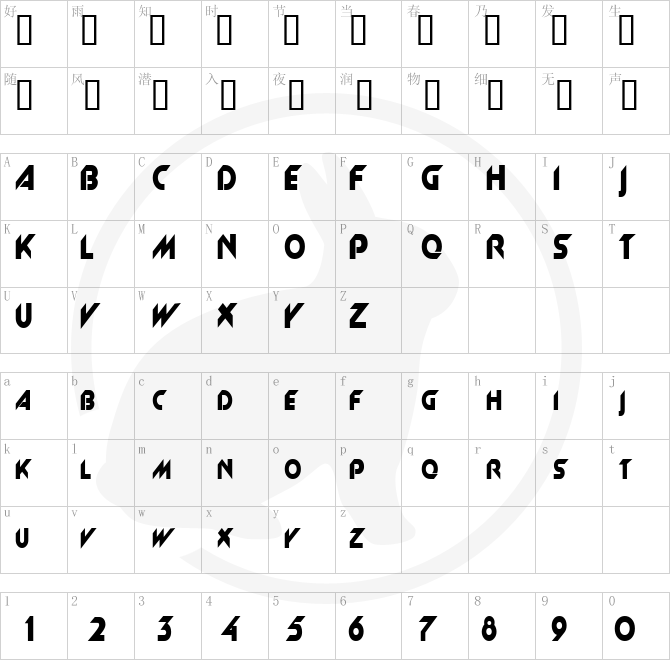
- Font Name:Machine-Condensed
Machine-Condensed-Normal-copy-2-.ttf is a very beautiful artistic font, Machine-Condensed-Normal-copy-2-.ttf is widely used in the design and printing of various books and pictures,Machine-Condensed-Normal-copy-2-.ttf has a strong visual impact,Machine-Condensed-Normal-copy-2-.ttf is a commonly used font in newspapers, magazines and books, and is used in posters, e-commerce Poster design, store design, logo design, font design and other fields.Machine-Condensed-Normal-copy-2-.